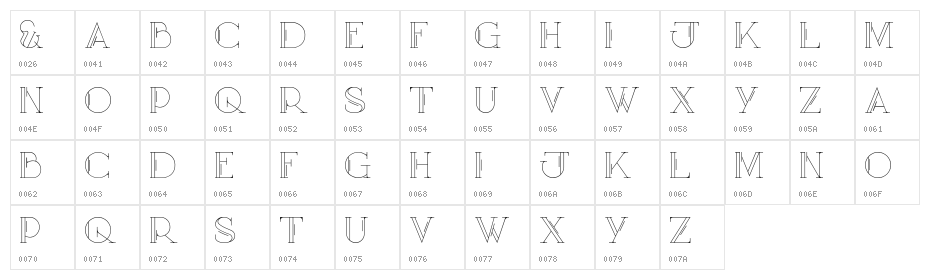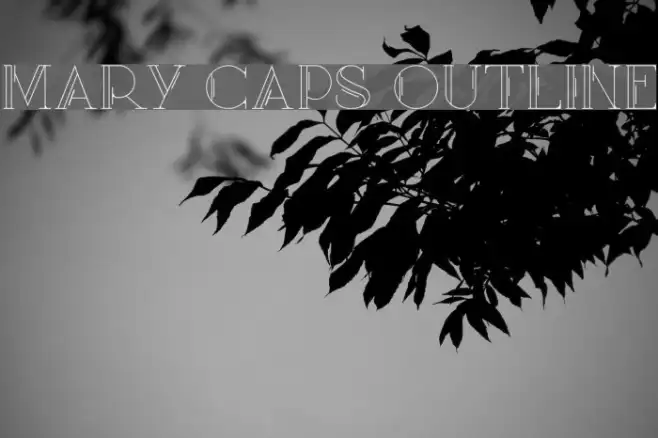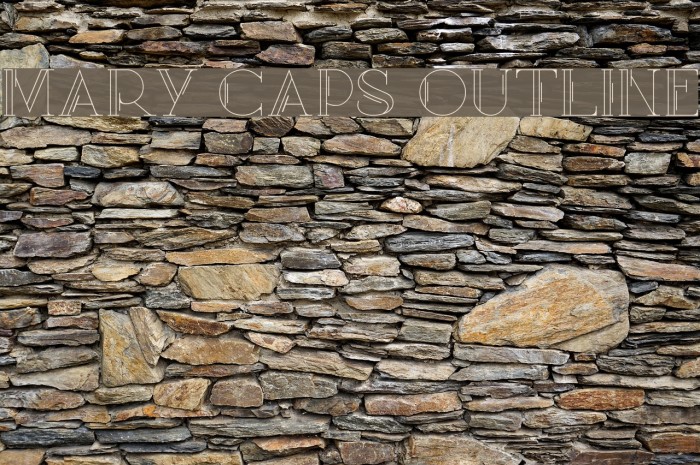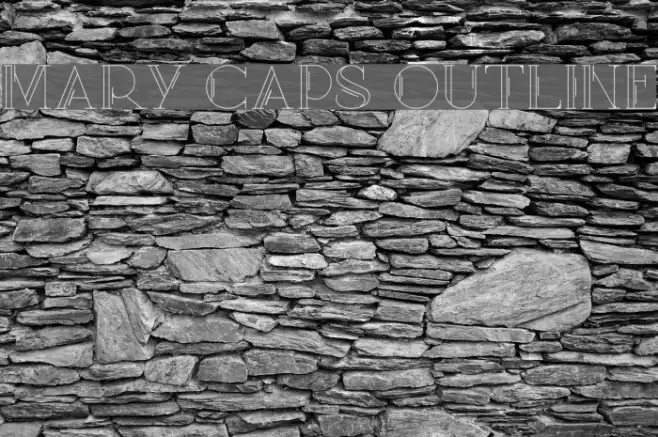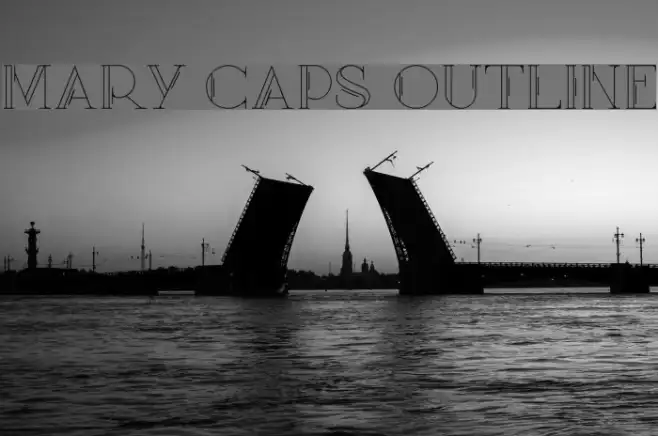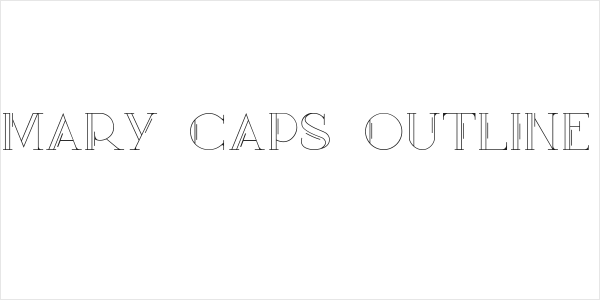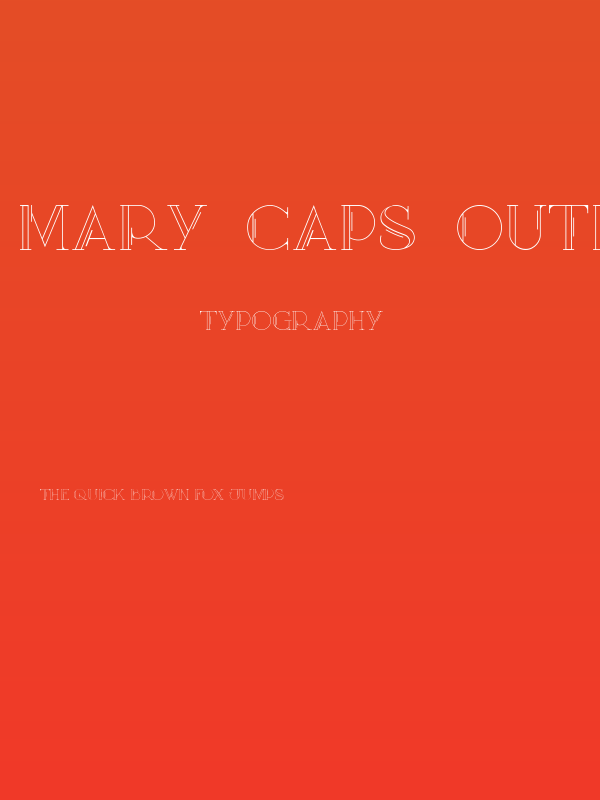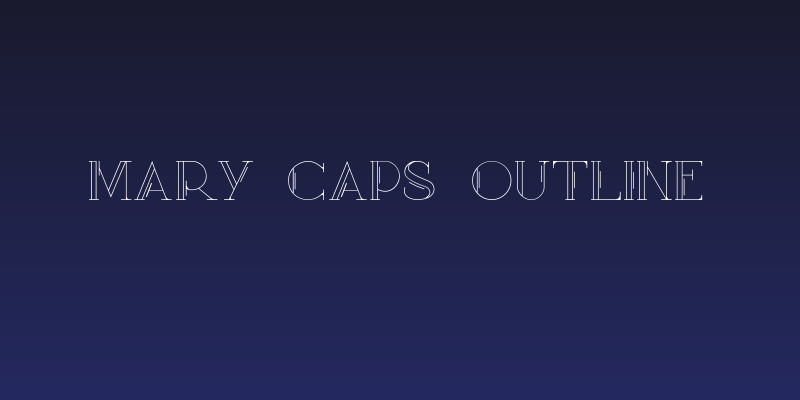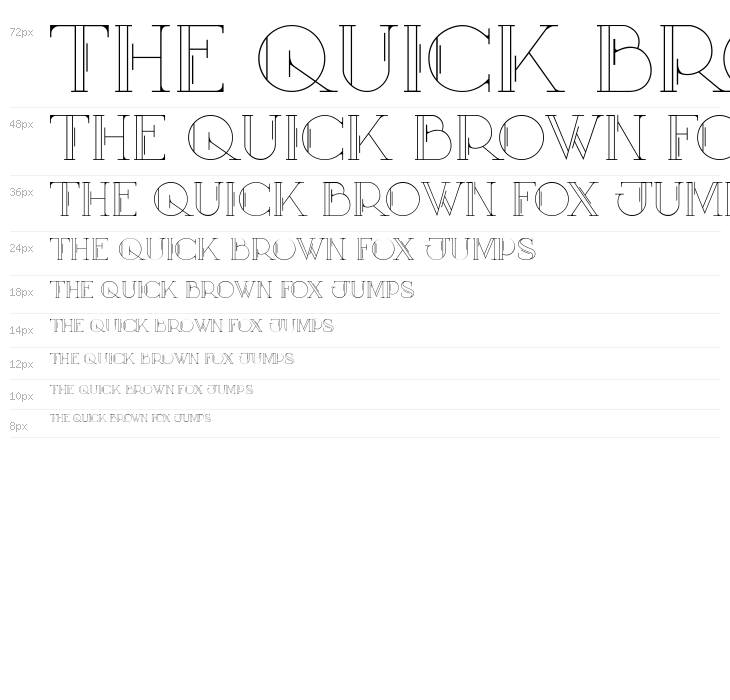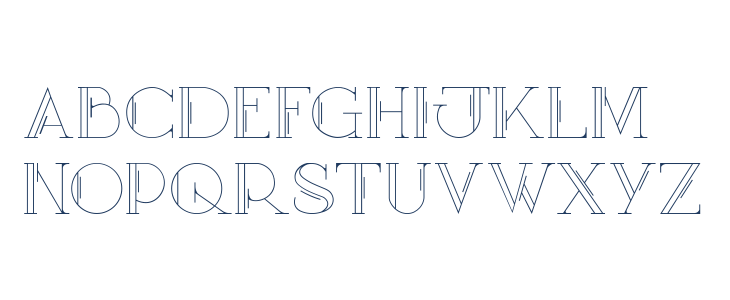
Mary [CAPS] Outline Font
Mary [CAPS] Outline Description
This font features a distinctive outline style, characterized by its elegant and sophisticated design. The uppercase letters are crafted with precision, showcasing a blend of geometric and classic elements. The lines are clean and sharp, providing a modern yet timeless appeal. The font's outline nature gives it a unique transparency, making it suitable for overlaying on various backgrounds. Its structured form and balanced proportions make it versatile for both formal and creative projects. The absence of lowercase letters and numbers emphasizes its decorative purpose, ideal for headlines, logos, and branding materials.
| Proposed Projects | Ideal for branding, logos, headlines, and decorative print materials. |